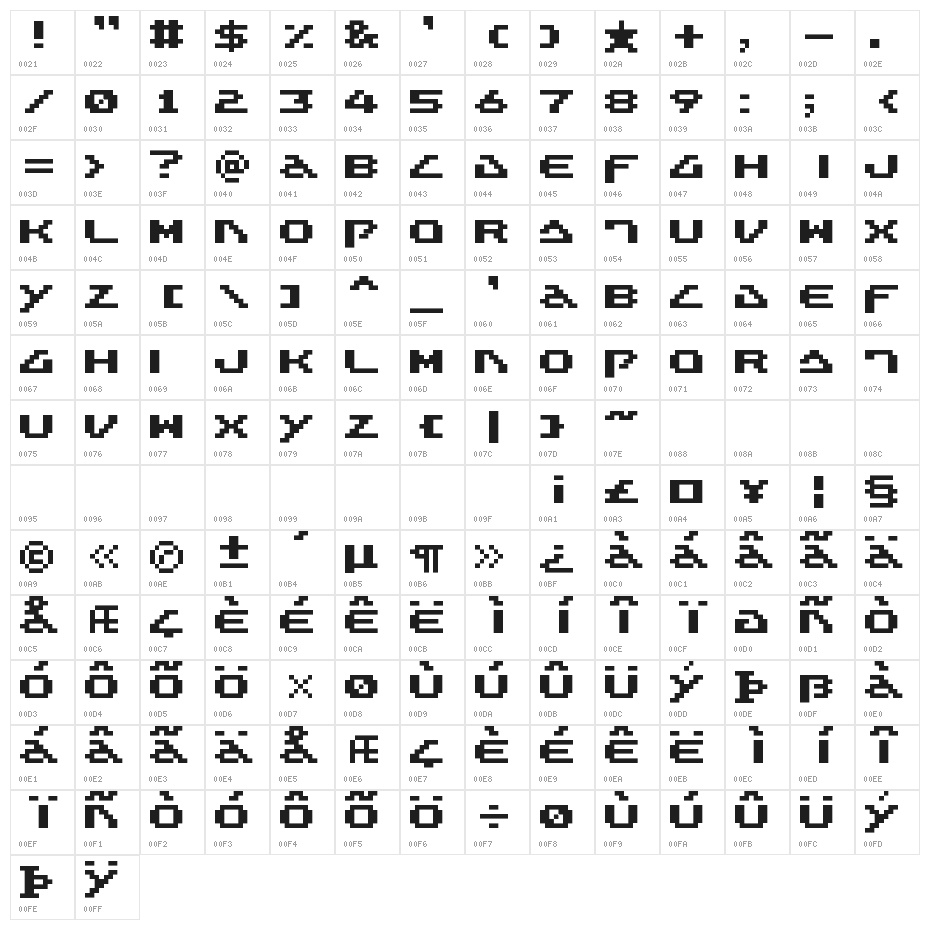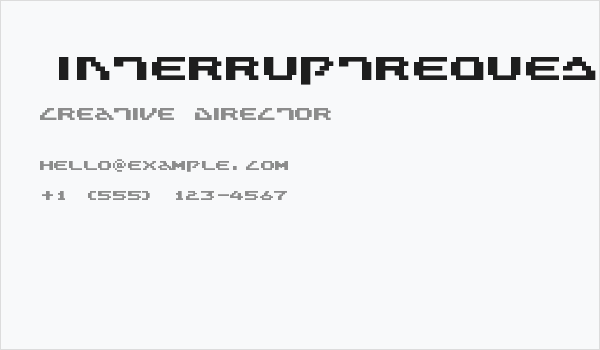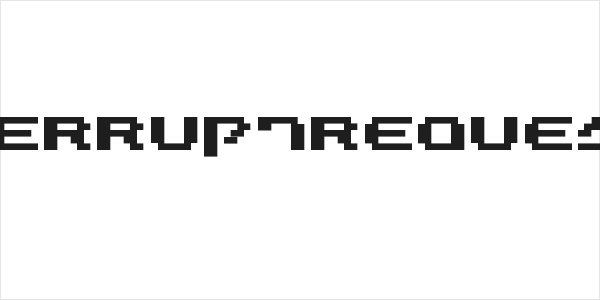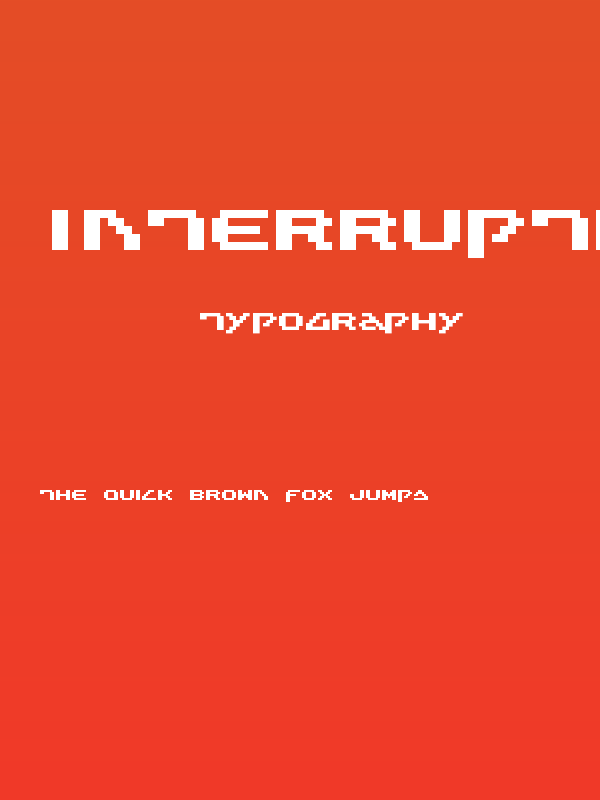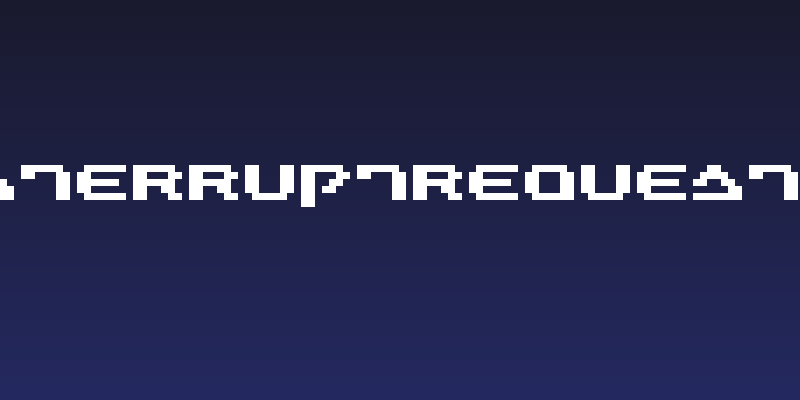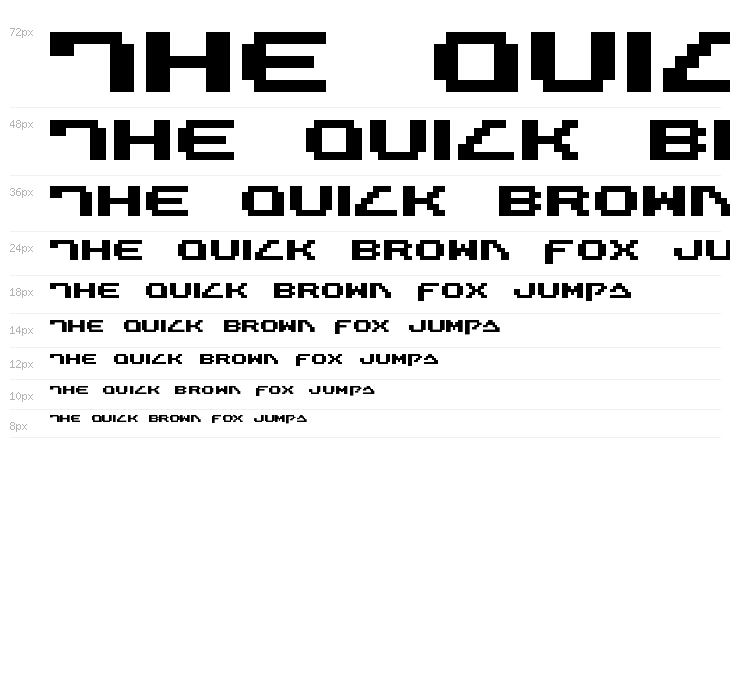
InterruptRequested Font
InterruptRequested Description
This font features a bold, pixelated design reminiscent of early digital and arcade aesthetics. Each character is constructed with a blocky, geometric style that emphasizes straight lines and right angles, creating a distinctly retro and technological feel. The uppercase and lowercase letters maintain a consistent height, contributing to a uniform appearance. Numbers and special characters follow the same pixelated theme, ensuring visual coherence across all glyphs. The font's simplicity and clarity make it highly legible, even at smaller sizes, while its unique style adds a playful, nostalgic touch to any project.
Overall StyleRetro, Digital
Use CaseHeadlines, Logos, Digital displays
Proposed ProjectsIdeal for video game design, retro-themed posters, digital art, and tech-related branding.